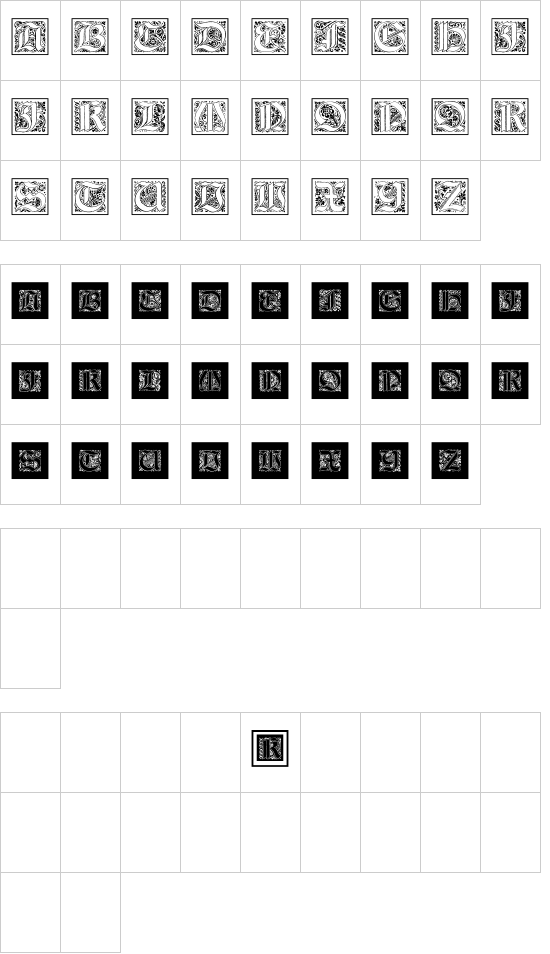
KaiserRotbartOneCaps is an Old English font designed for bold, imperial initial caps with German blackletter heritage. The capitals are dense and grandly decorated, carrying the angular strokes and ornate detail of old German gothic lettering. Each letter reads as a commanding, ceremonial mark with regal weight.
Use it for gothic drop caps, heraldic branding, certificate headings, and posters that want a grand, traditional flourish. The imperial caps make strong focal letters. KaiserRotbartOneCaps is free to download as a TrueType file, and you can preview your own text to see how the ornate initials render before using them in a design.